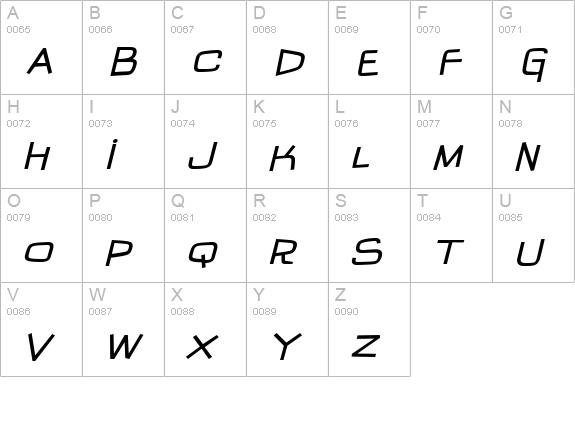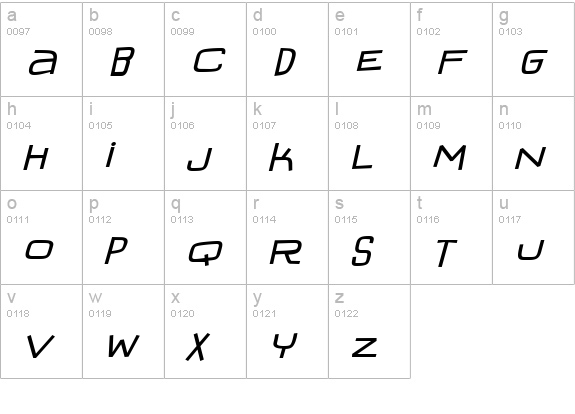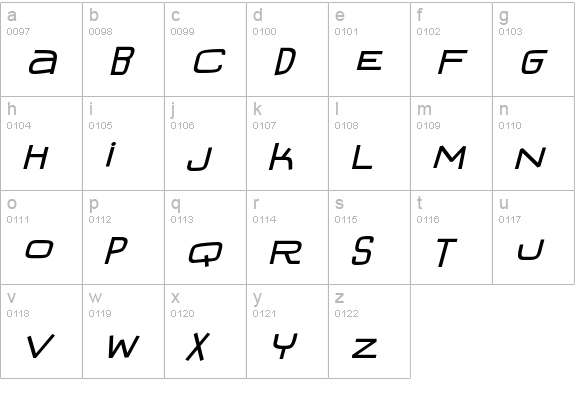
IguanaLover BTN BoldOblique font is a stunning display typeface that exudes a sense of elegance and boldness. With its unique combination of bold lines and stylish curves, this font is sure to make a statement in any design project. This font's bold oblique style adds a touch of sophistication and modernity, making it perfect for headlines, logos, posters, and other creative endeavors. Its eye-catching presence commands attention and leaves a lasting impression on viewers. But what sets IguanaLover BTN BoldOblique font apart is not only its aesthetic appeal but also its availability. This font is freely available to download at FontsMarket.com, providing designers and enthusiasts with the opportunity to add this incredible typeface to their collection without breaking the bank. Whether you're a professional designer or a passionate hobbyist, IguanaLover BTN BoldOblique font offers endless possibilities for your creative projects. Its versatility allows it to be used in various contexts, from branding to advertising, ensuring that your designs stand out from the crowd. So why wait? Take advantage of this incredible opportunity and download IguanaLover BTN BoldOblique font for free at FontsMarket.com. Unleash your creativity and elevate your designs with this captivating typeface that is sure to leave a lasting impression.